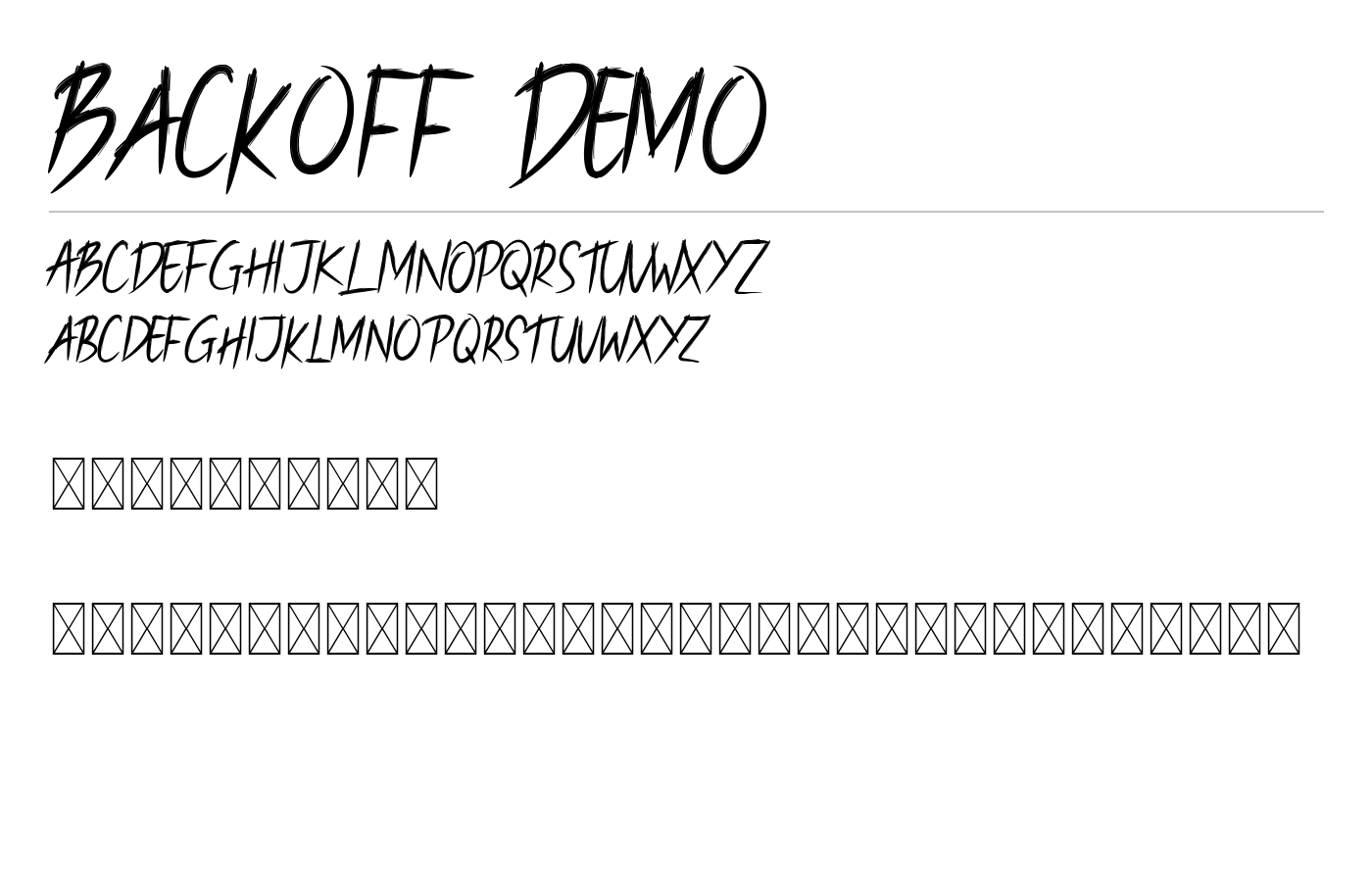
Backoff Demo is a bold, energetic script font with sharp, jagged strokes that give it a dynamic, grungy feel. Its tall, narrow letterforms and irregular edges create a sense of urgency and attitude, making it perfect for edgy branding, posters, or any design needing a rebellious, modern vibe. This font works best in headlines or display uses where its expressive style can stand out and grab attention.
Backoff Demo Font
About Backoff Demo Font
| Font family | Backoff Demo Font |